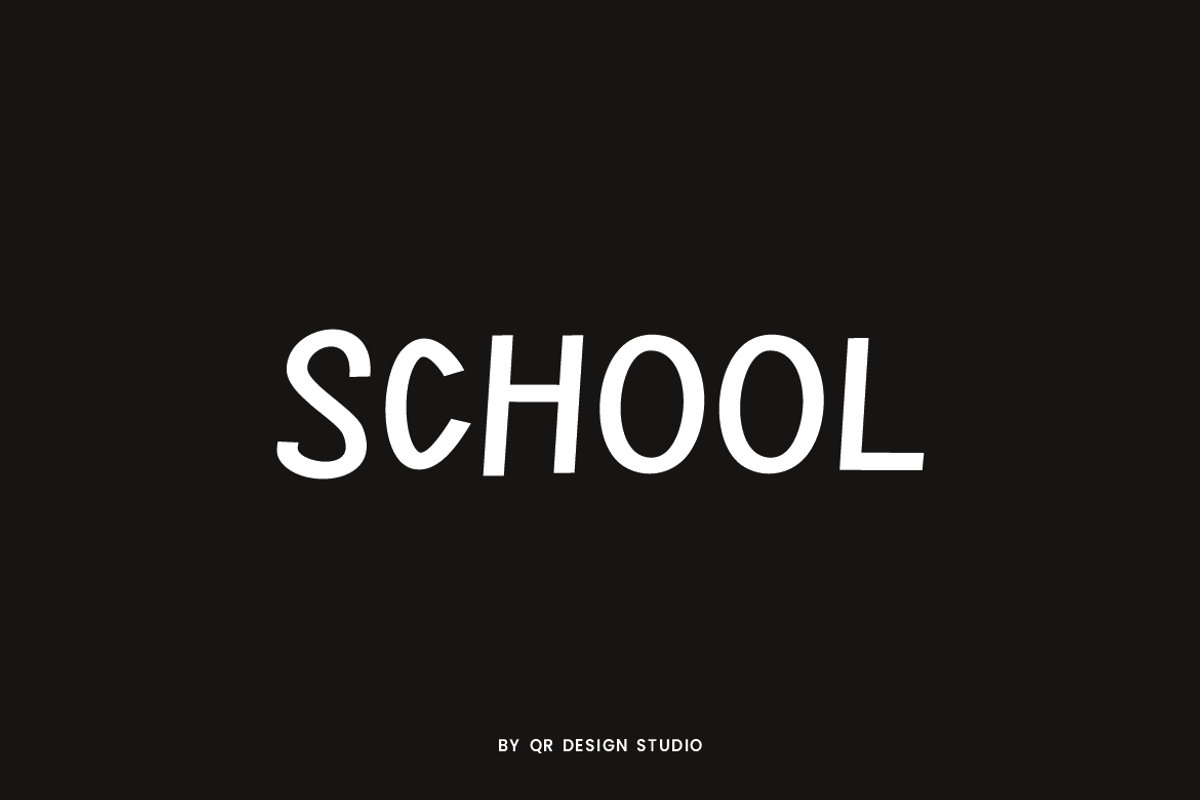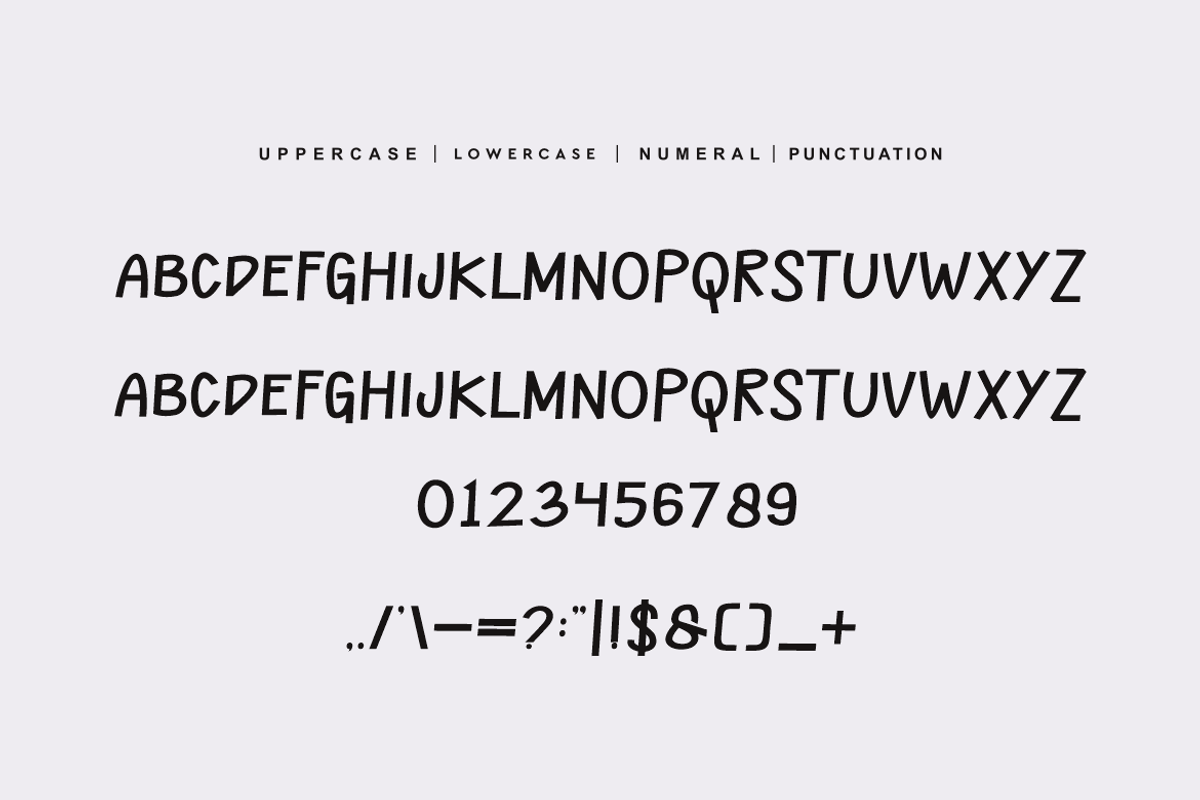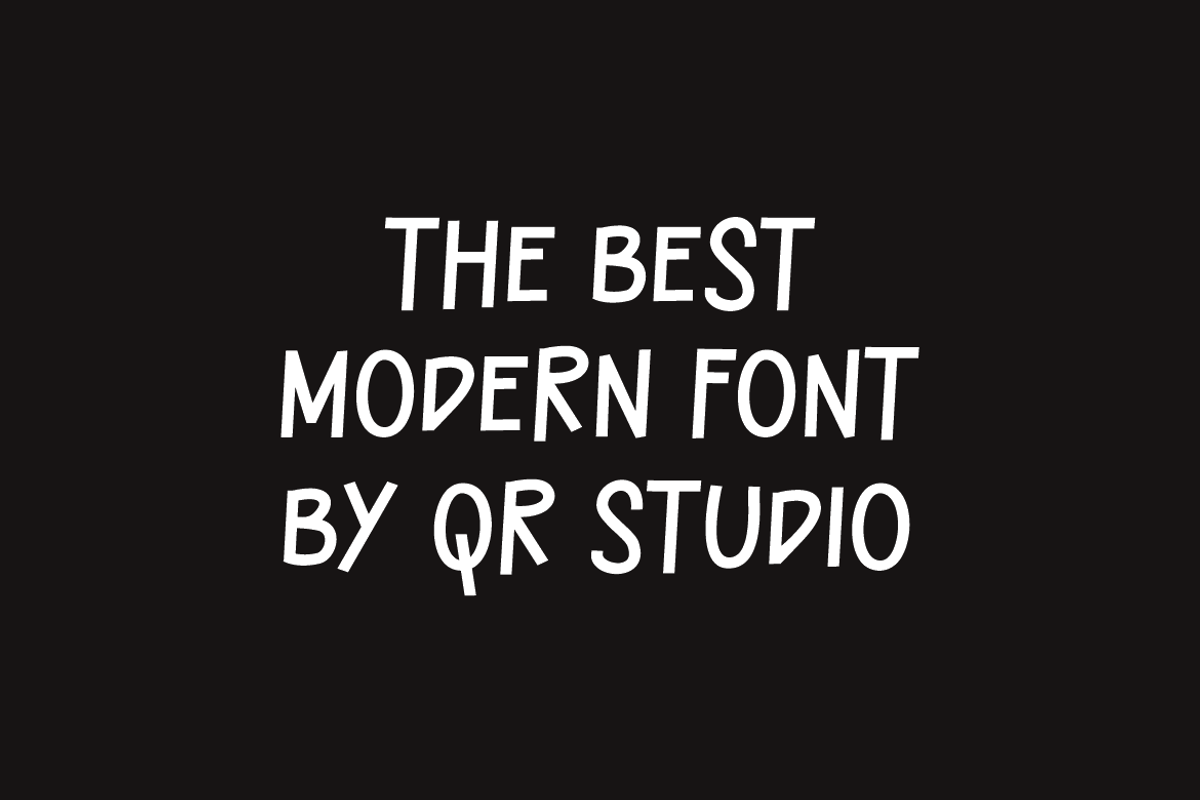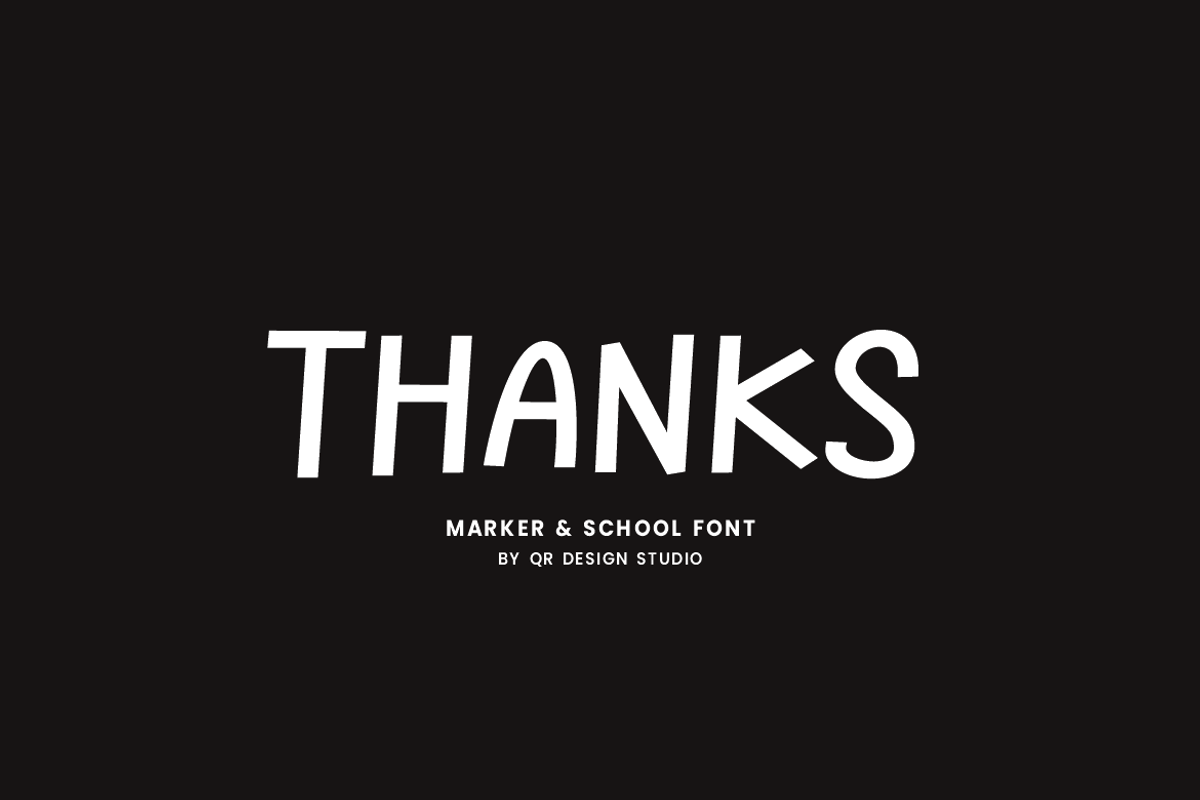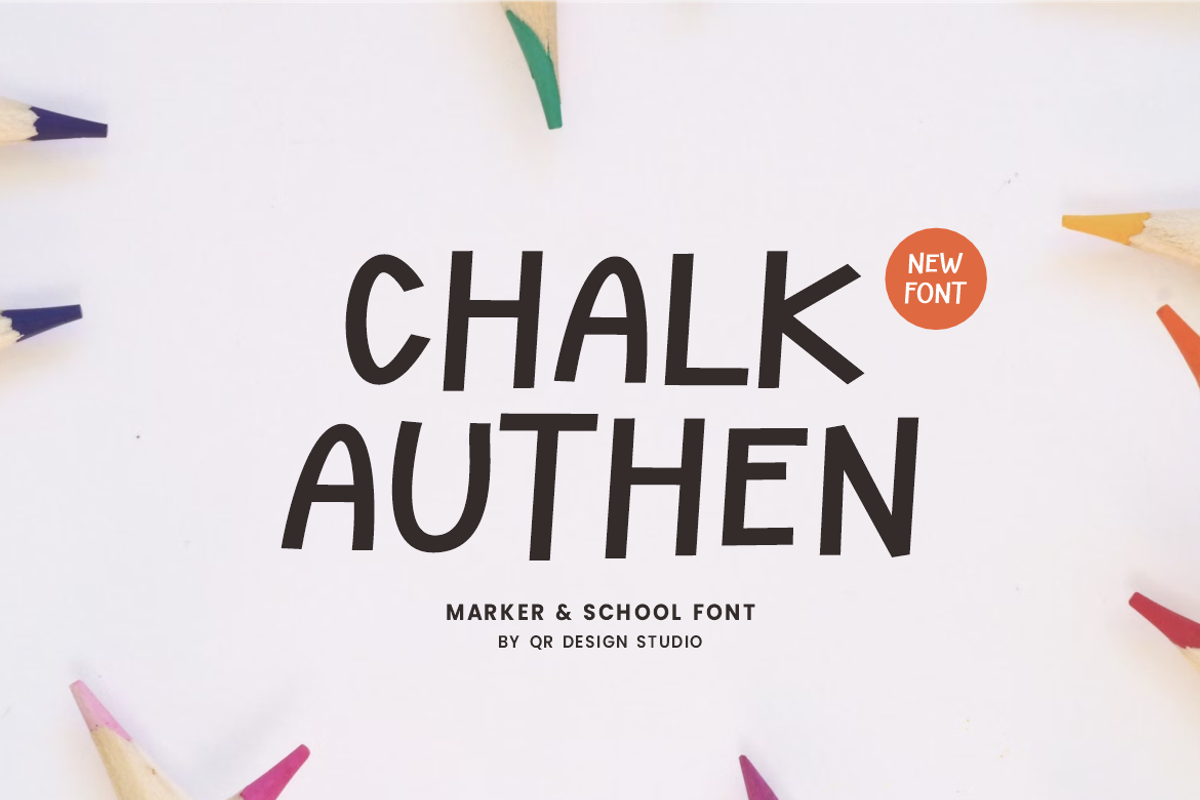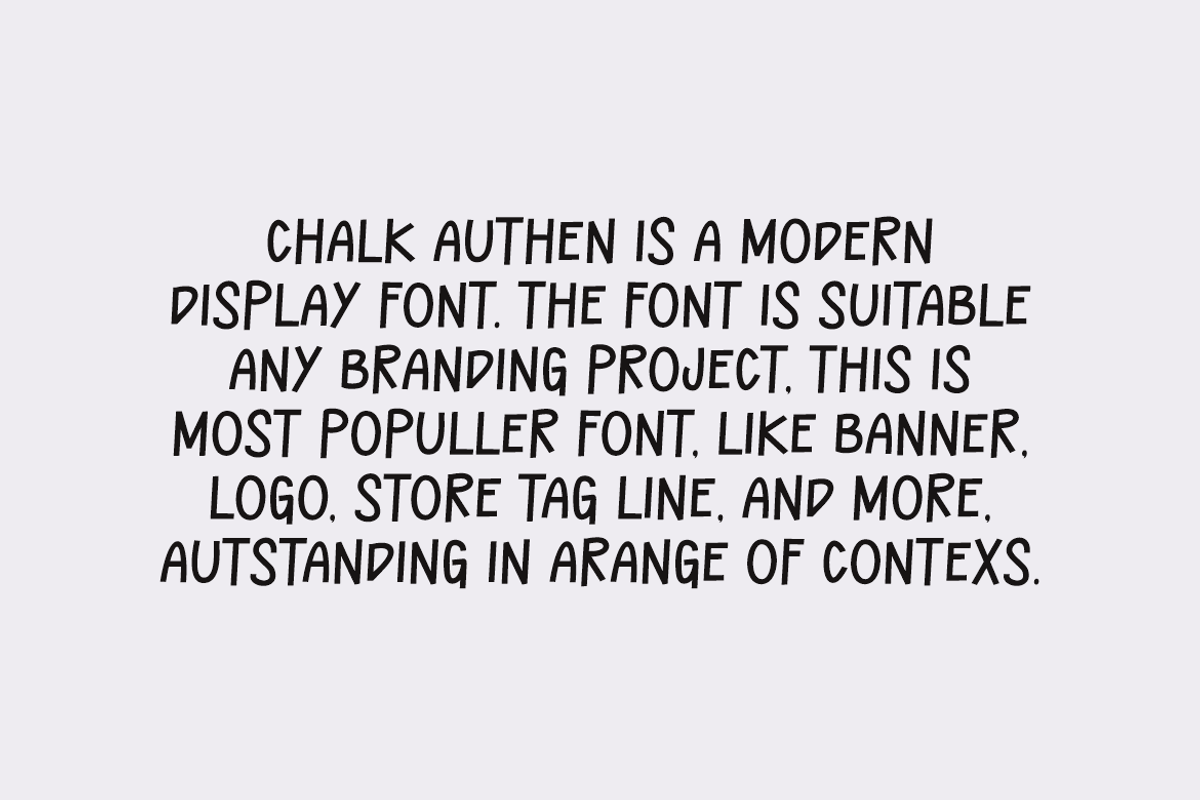
Chalk Authen - Marker & School Font
Chalk Authen Font is a hand drawn and authentic display font. The font is suitable for any branding project like poster, logo, sport, and many more. Outstanding in a wide range of contexts.